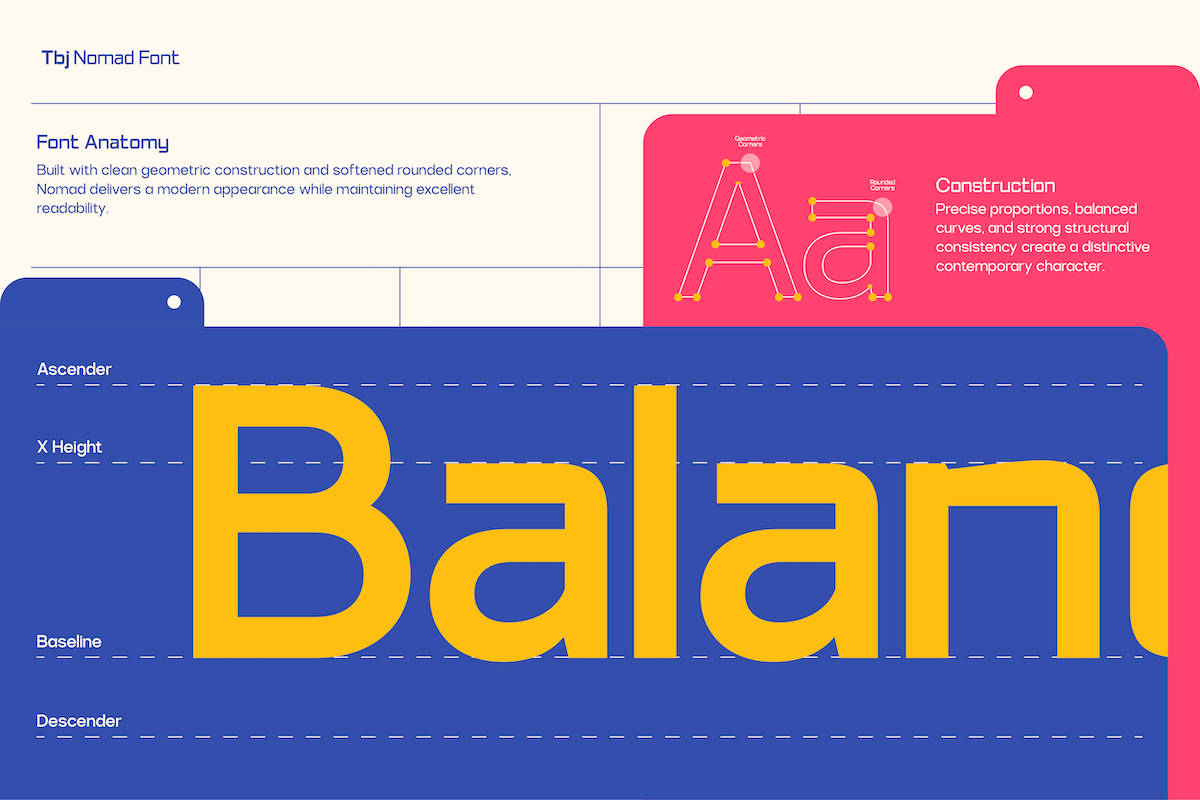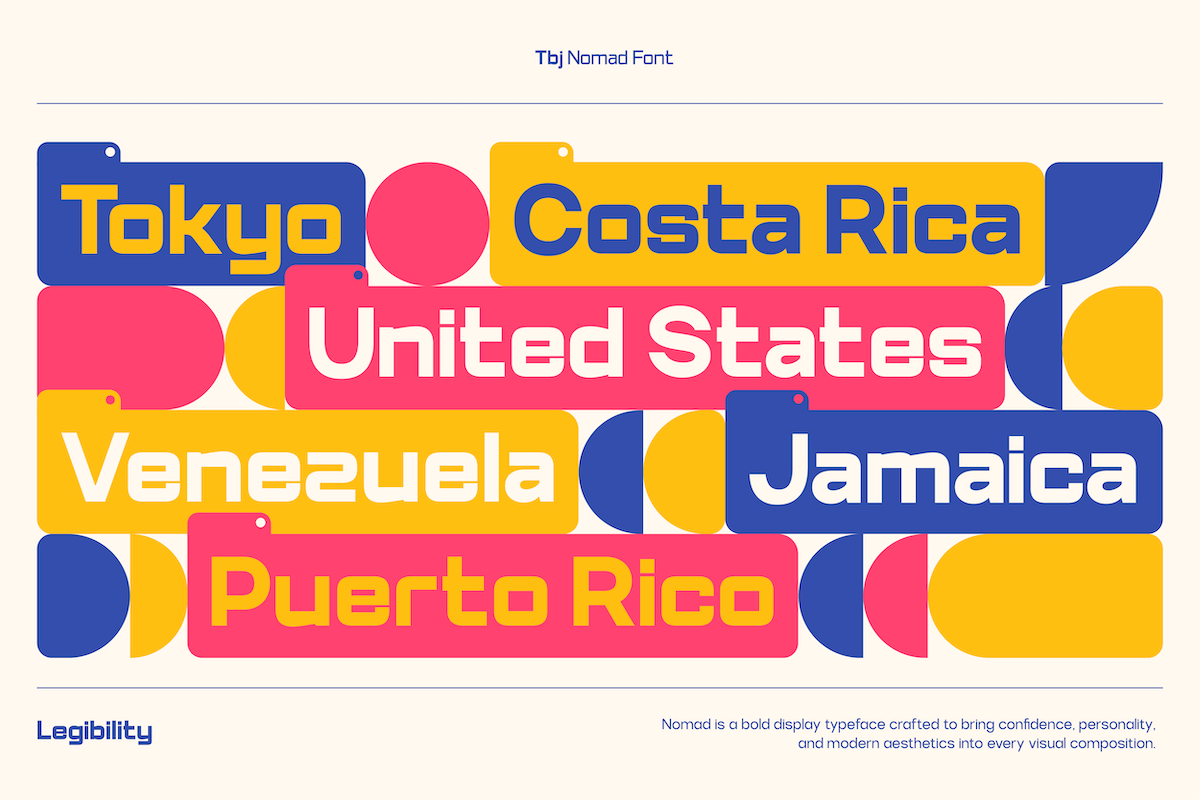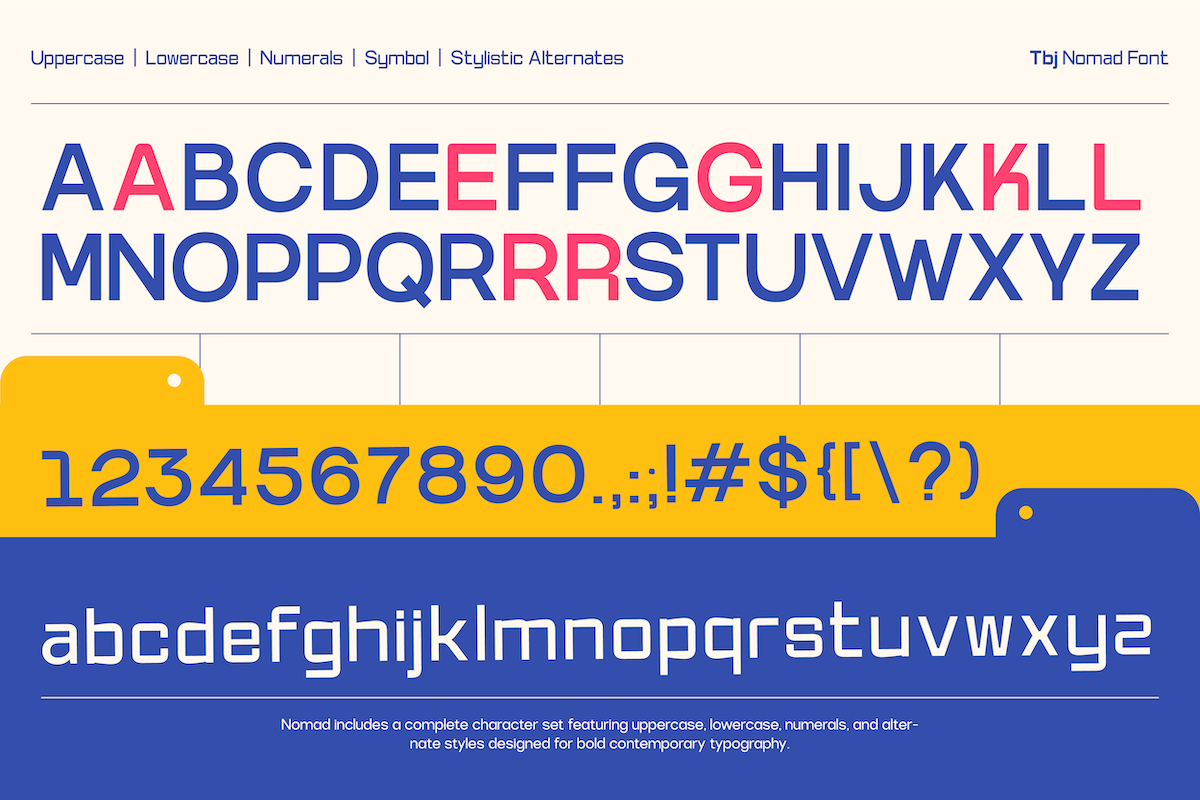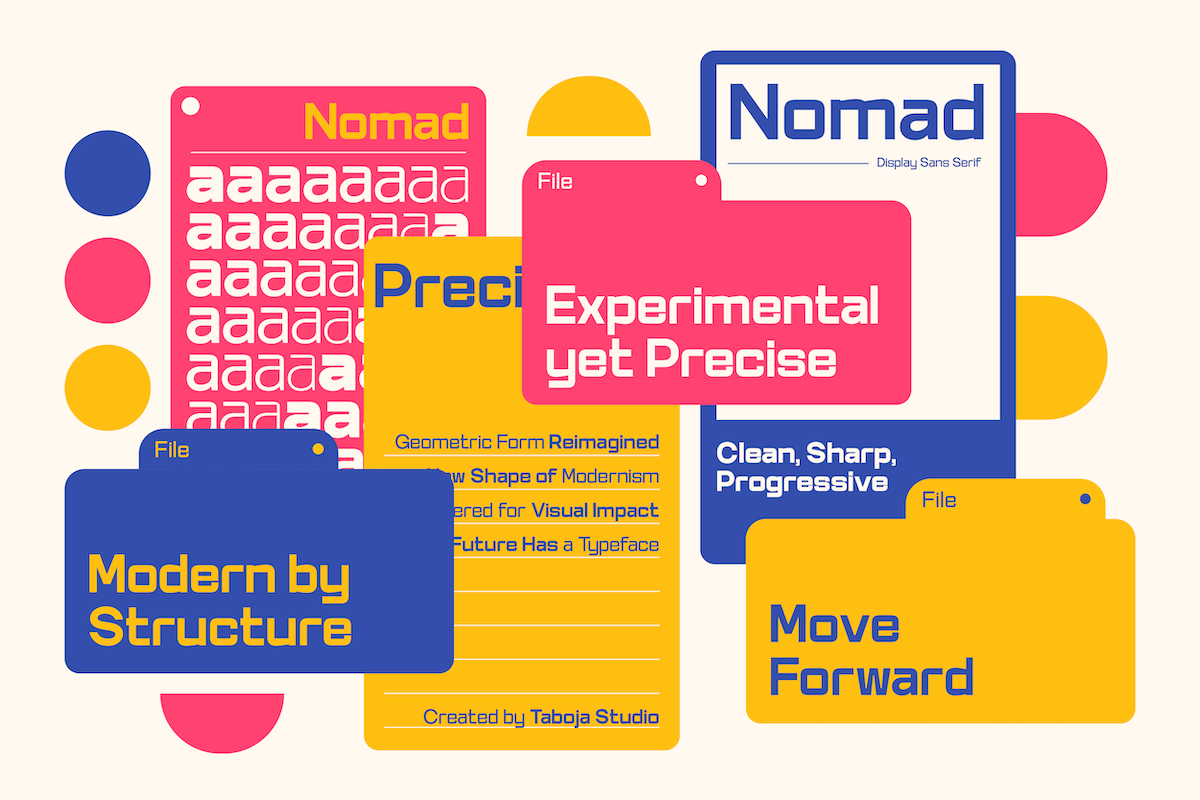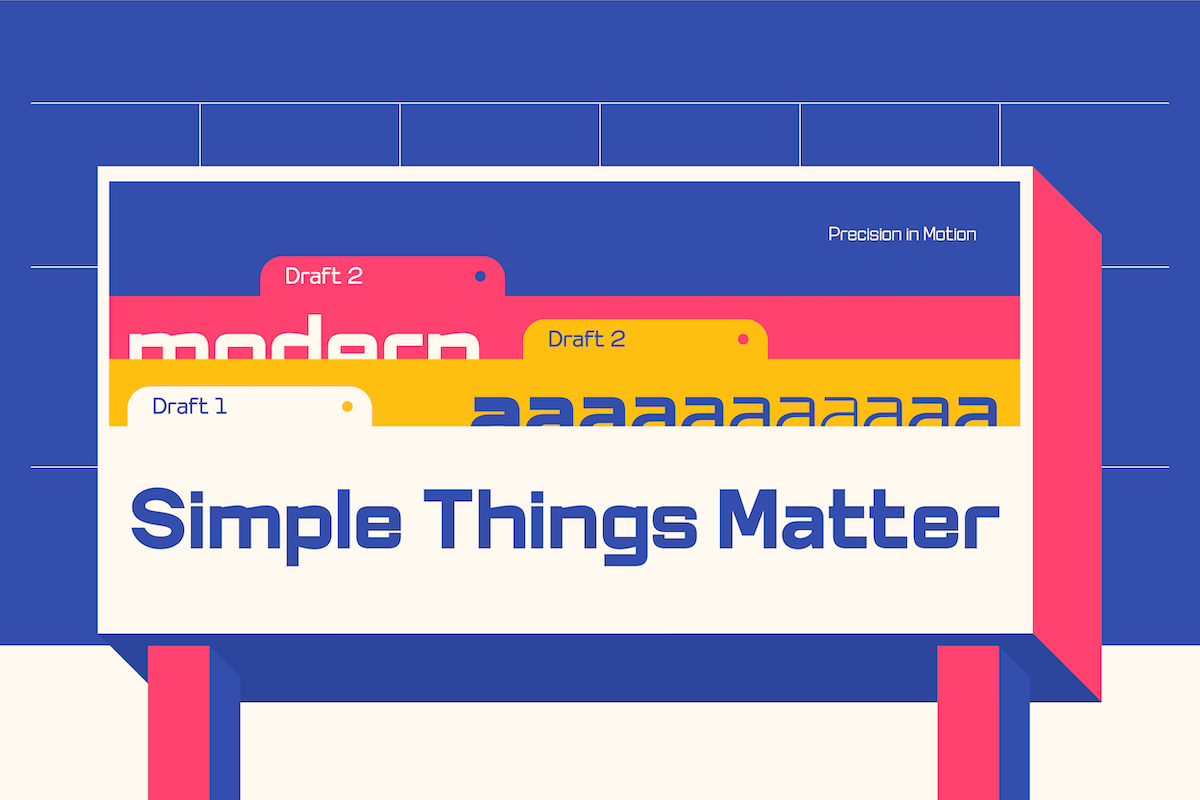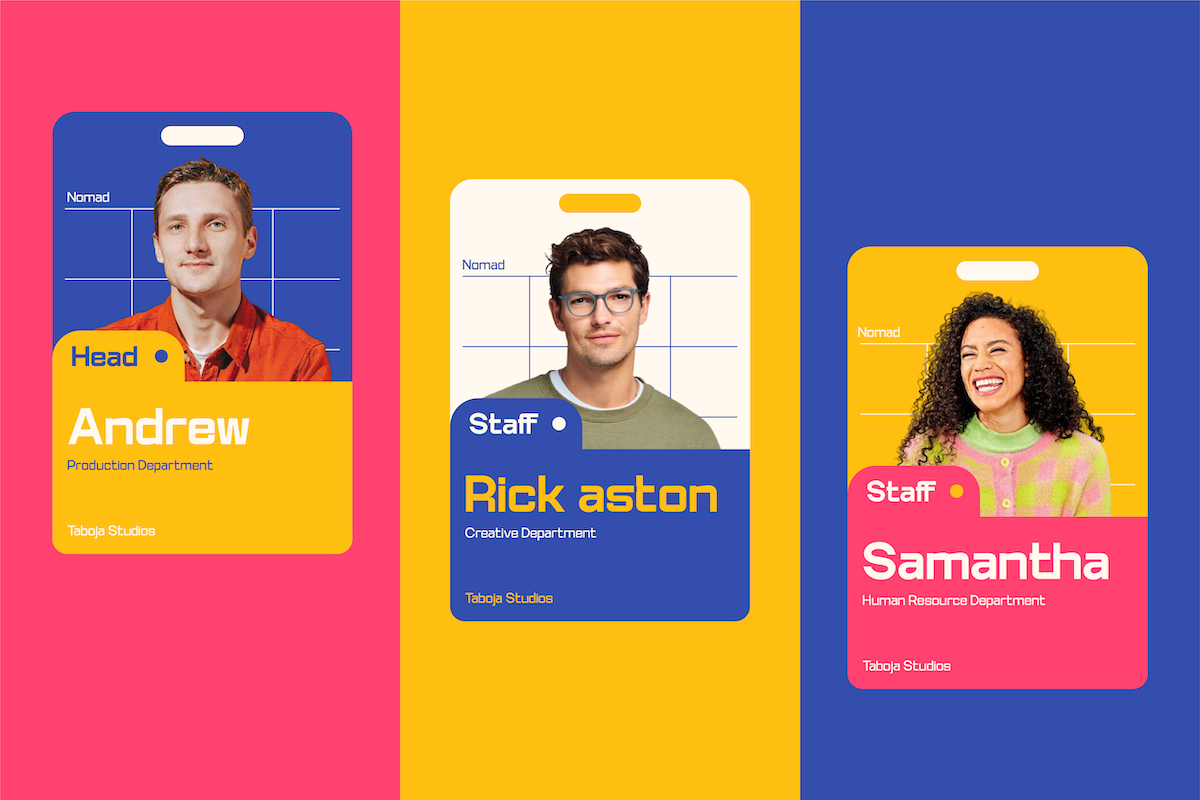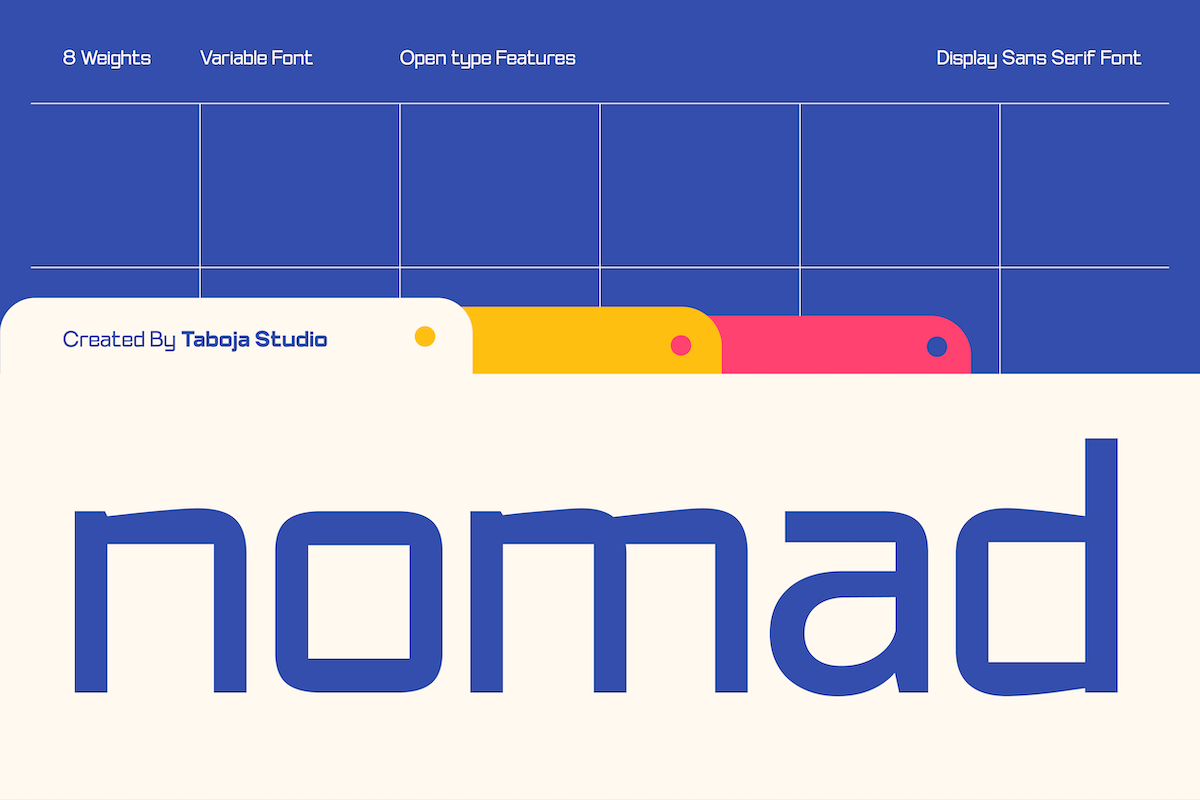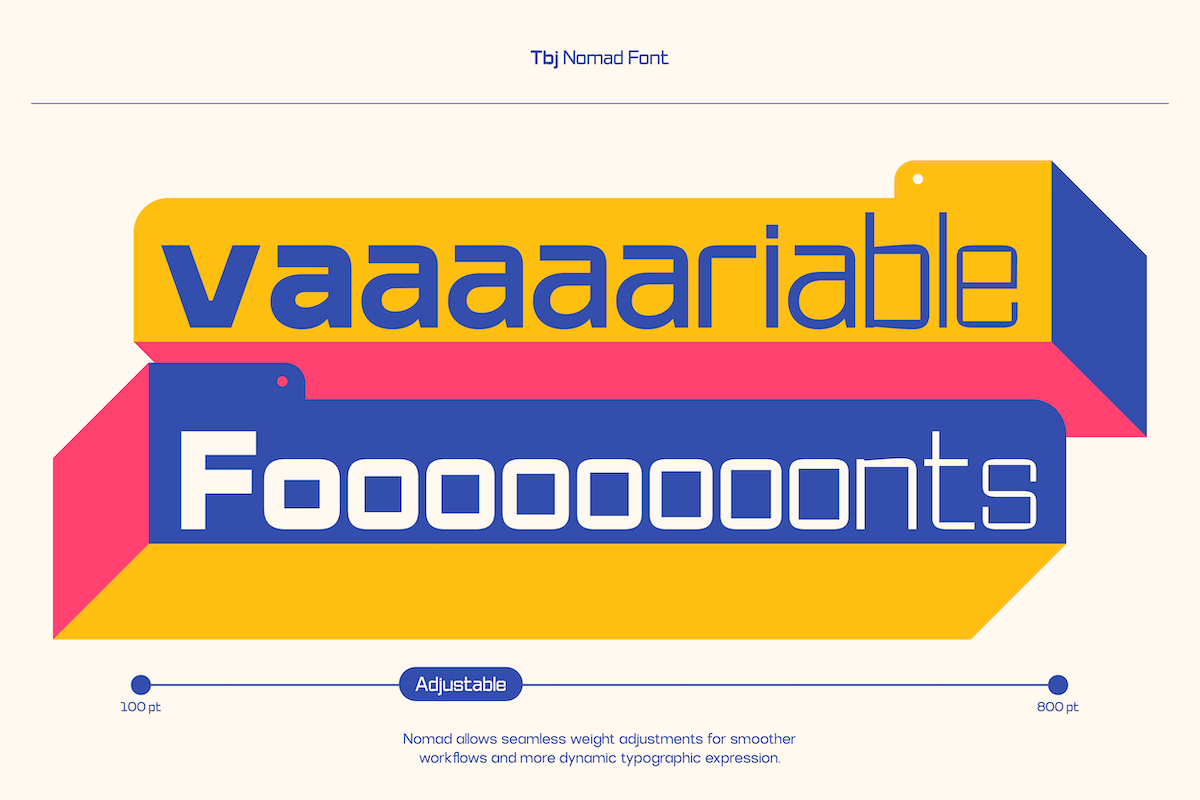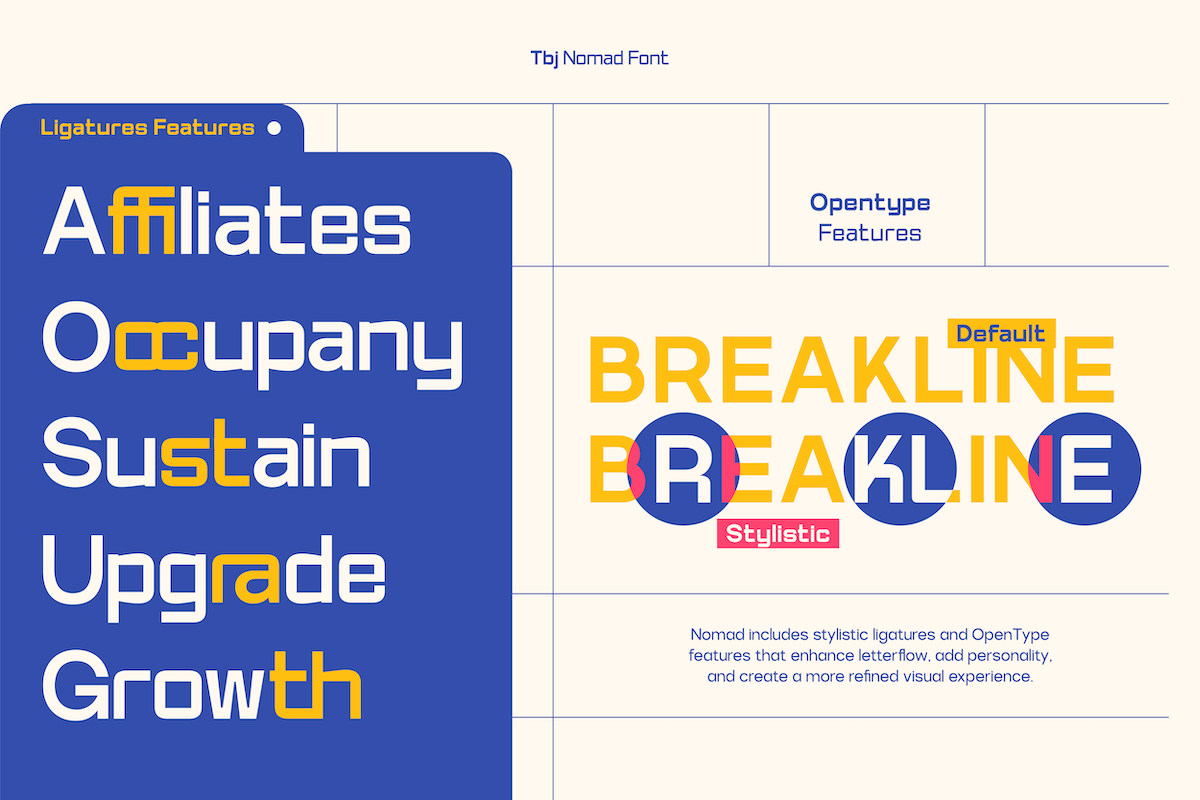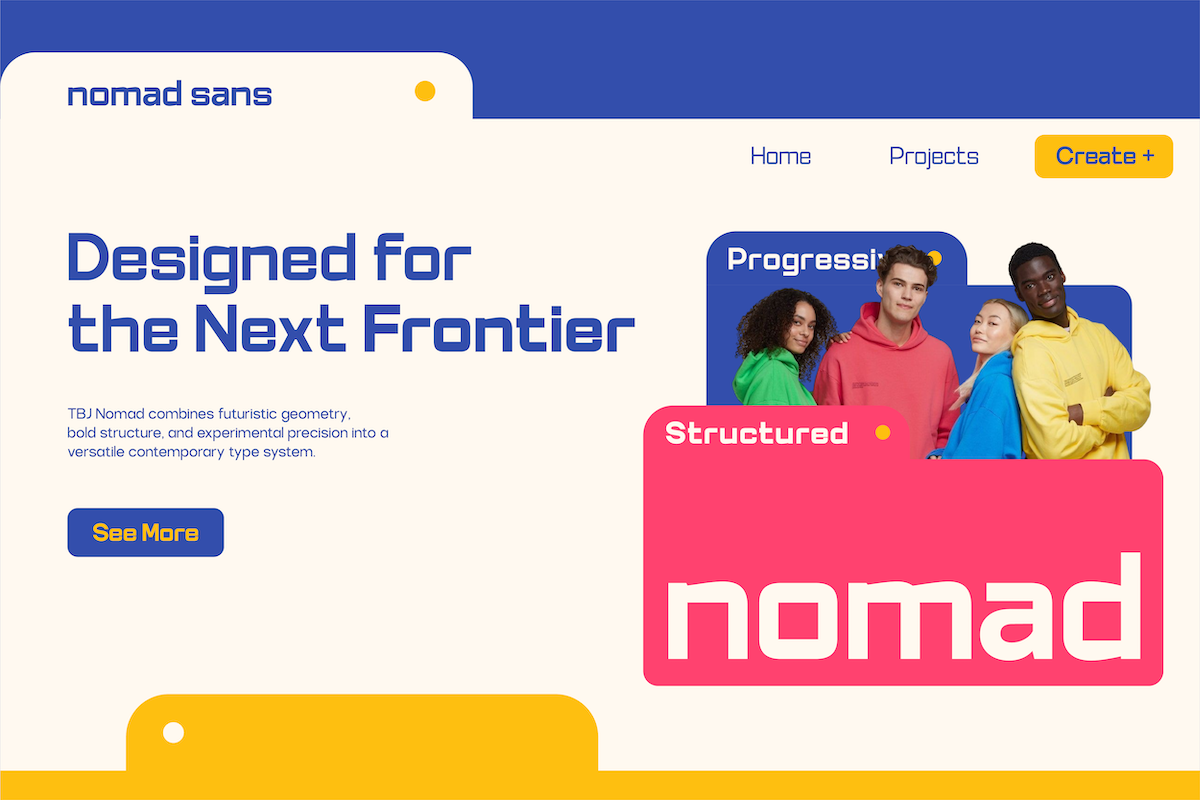
TBJ Nomad — Display Sans Font Family
Building an interface that needs to hold its own at headline size and small UI text alike? TBJ Nomad is a display sans built specifically for screen use, from app headlines to UI/UX cards. Its lowercase curves cut short at the terminal on 'a' and 'e', giving it a distinct signature and a medium stroke contrast that stays sharp at any size. Eight weights, from Thin to Extra Bold, cover everything from body-adjacent UI text to bold digital headlines. Built for product designers, UI/UX teams, and digital-first brands that need one family to scale across a full interface.